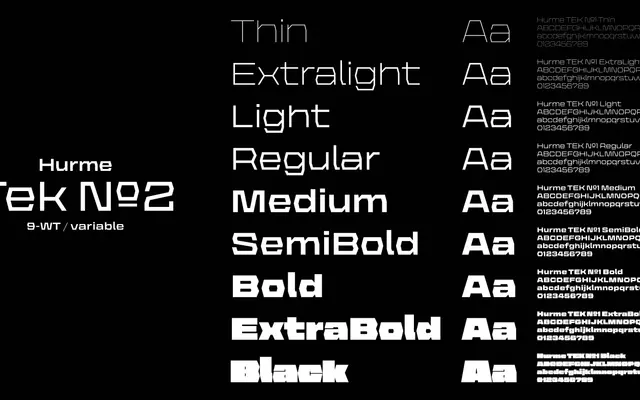
Hurme Tek №2
A wide monolinear sans distinguished by hexagonal stroke terminals in place of vertical curves, available in nine weights and as a variable font.
Hexagonal strokes replace conventional rounded curves throughout, giving the typeface a distinctly mechanical and angular character. A large x-height combined with short ascenders and descenders keeps it compact and legible at display sizes. Nine static weights run from Thin to Black, with a single-axis variable font also available.
A wide monolinear sans with hexagonal stroke terminals replacing conventional curves, placing it firmly in geometric sans territory with a mechanical and technical character.